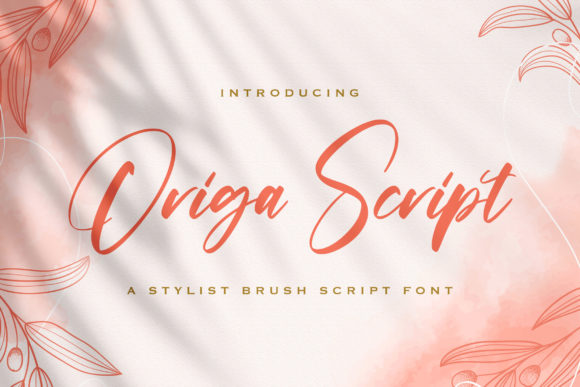
Unleash the elegance and sophistication of your designs with Origa Script Font, a breathtaking script font that embodies the essence of luxury and creativity. Immerse yourself in the world of modern calligraphy and let your imagination soar as you craft stunning designs that leave a lasting impression.
Origa Script is more than just a font; it's an artistic expression that adds a touch of glamour to any project. Its enchanting curves and flowing lines evoke a sense of timeless beauty, while its versatility lends itself to a wide range of design possibilities.
Picture your designs adorned with the graceful strokes of Origa Script, captivating your audience with its undeniable charm. Whether you're creating logos, branding materials, wedding invitations, or social media graphics, Origa Script will elevate your work to new heights.
With its remarkable adaptability, Origa Script seamlessly blends with various design styles, from classic to contemporary. Its elegant personality shines through, adding a touch of sophistication to minimalist designs and complementing the intricate details of more elaborate layouts.
Fall in love with the endless possibilities that Origa Script presents. Explore the world of typography and let your creativity flourish as you witness the transformation of your designs into masterpieces.
Don't settle for ordinary; embrace the extraordinary with Origa Script Font. Experience the joy of creating designs that captivate and inspire, leaving a lasting impression on your audience.